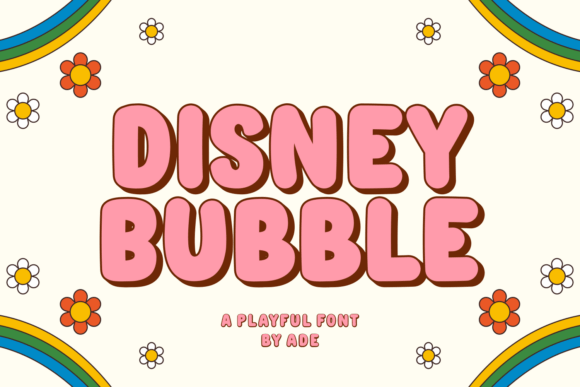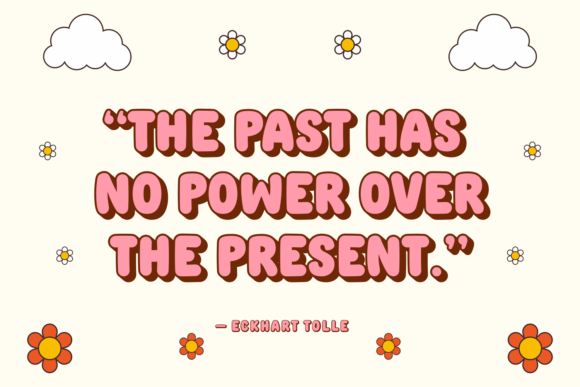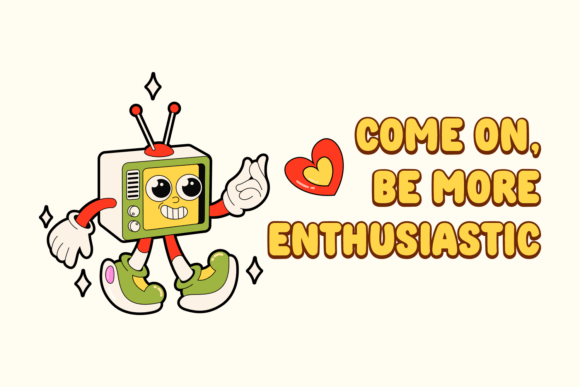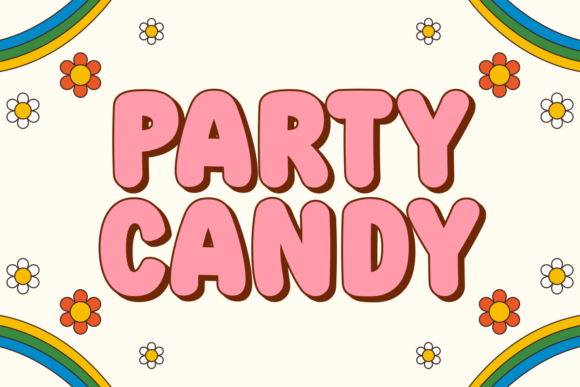
Disney Bubble Font
About the Disney Bubble Font
Introducing the Disney Bubble Font, a beautifully crafted typeface designed to elevate your creative projects. Disney Bubble Display Font” is a fun and cheerful typeface, with rounded corners that give it a friendly and fun feel. This font is designed to convey a cheerful and affectionate message, perfect for use on social media, invitations or other digital designs. With its expressive and colorful letter style, this font adds playfulness and warmth to the design, creating a unique and interesting impression.
Its playful, rounded forms make it ideal for headlines, short titles, and playful branding projects targeting a younger demographic. It excels in applications like children’s books, greeting cards, and social media posts where a friendly, approachable tone is desired. However, its low x-height and large ascenders/descenders render it unsuitable for body text or UI elements requiring high readability.
Consider pairing Disney Bubble Font with a clean sans-serif like Open Sans for body text, creating a pleasing contrast between playful display and legible readability. Alternatively, a classic serif font such as Garamond could add a touch of sophistication, tempering the font’s inherent exuberance.
Disney Bubble Font projects a distinctly cheerful and friendly personality. Its bubbly forms convey a sense of fun and approachability, making it perfect for brands focused on lightheartedness and approachability.
Disney Bubble Font Usage Examples
Disney Bubble Font Example